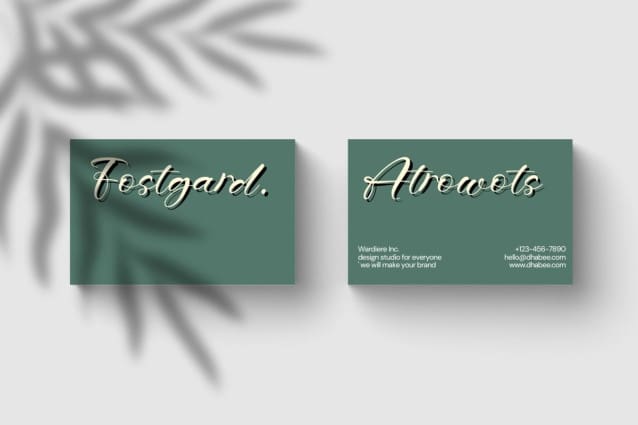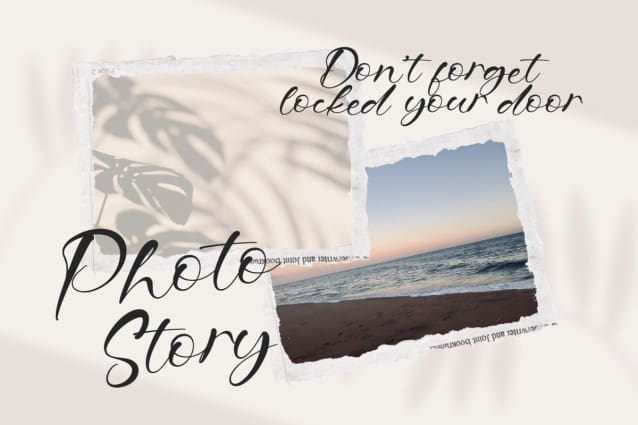
Fostgard Script Font
Fostgard Script Font, this Font is a delicate, elegant and flowing handwritten font. It has beautiful and well as a unique blend of ligatures a letter, so that the authors compose it with a and little swirly embedding, so that a modern font is formed and ready to make a statement by adding elegant and unique flair to your next design project. Add it to your most creative ideas and notice how it makes them come alive!